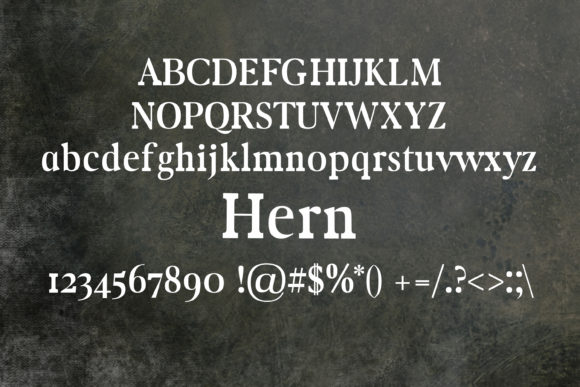
Introduction to Hern Font
Have you ever found yourself scrolling through a vintage photography website, mesmerized by the beautiful, high-quality images that transport you back in time? For designers, those moments can be a treasure trove of inspiration, and the right font can make all the difference in capturing that classic look and feel.
That’s where Hern Font comes in – a simple yet elegant serif font that’s perfect for any design project requiring a vintage vibe. With its classic style, Hern Font is a valuable design resource for creatives looking to add a touch of nostalgia to their work.
Key Features of Hern Font
- High-quality, professional design ideal for creative projects.
- Unique characteristic: The Hern Font features a unique blend of modern and vintage elements, making it a standout design resource.
Honest Review: Hern Font
As a designer, I’m always on the lookout for high-quality design resources that can elevate my creative projects. Recently, I had the chance to try out the Hern Font, and I’m excited to share my thoughts with you.
The Hern Font is a free download, which is always a bonus in my book. It’s a versatile font that can be used for a variety of purposes, from branding to digital design. One of the things that stood out to me was its transparent background, which makes it easy to work with and gives me a lot of flexibility in terms of design.
- ✨ Customizable and versatile, suitable for various design projects
- ✨ Transparent background, easy to work with
However, I do have a few limitations to note. The font is a bit limited in terms of character set and language support, which may be a concern for designers working on projects that require a wide range of languages.
- ⚠️ Limited character set and language support
- ⚠️ May not be suitable for projects that require a wide range of languages
Overall, I’d say the Hern Font is a solid addition to any designer’s toolkit. While it may have some limitations, its versatility and free download make it a great resource for designers looking to elevate their creative projects.
Hern Font is commonly used in various design projects, such as logos, brochures, social media graphics, and presentations. It’s also used in creative projects that require a high-quality, modern font.